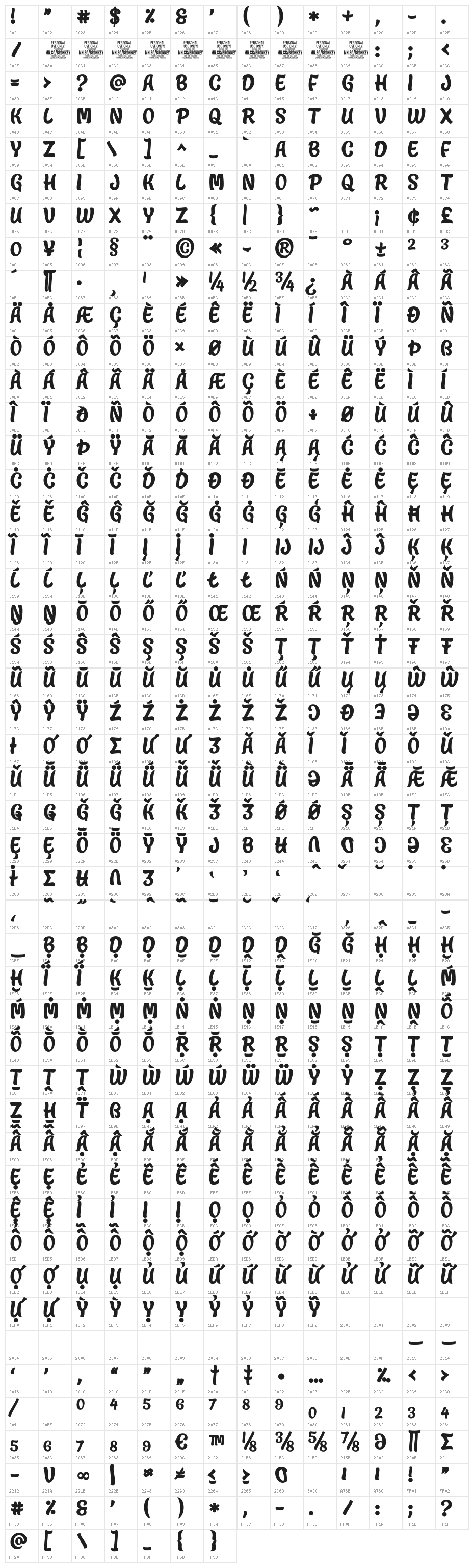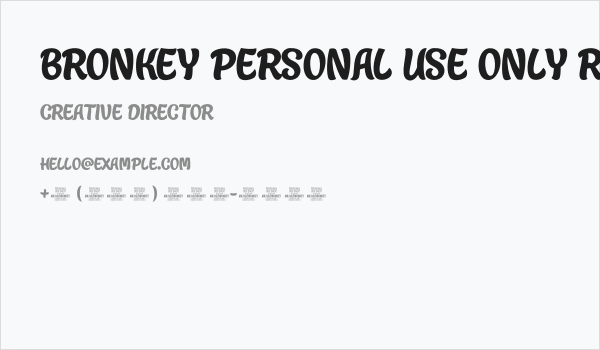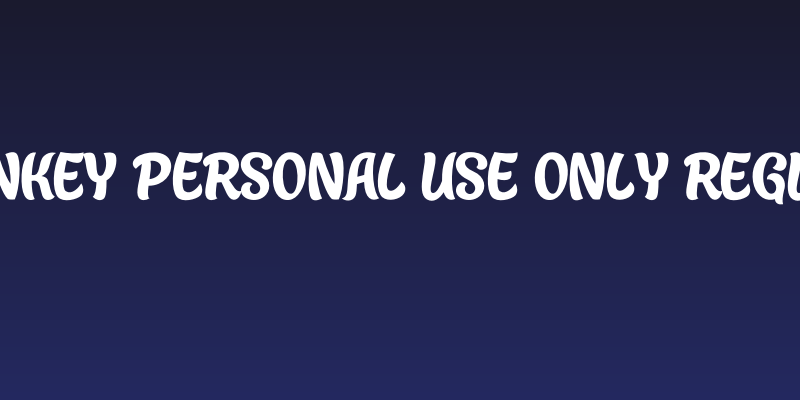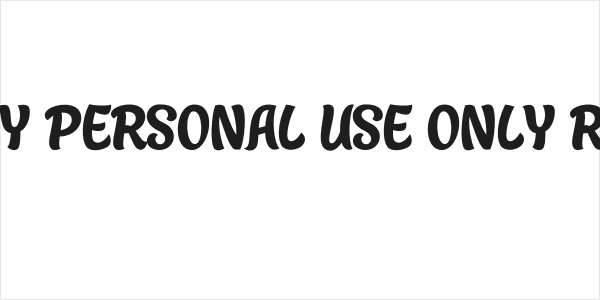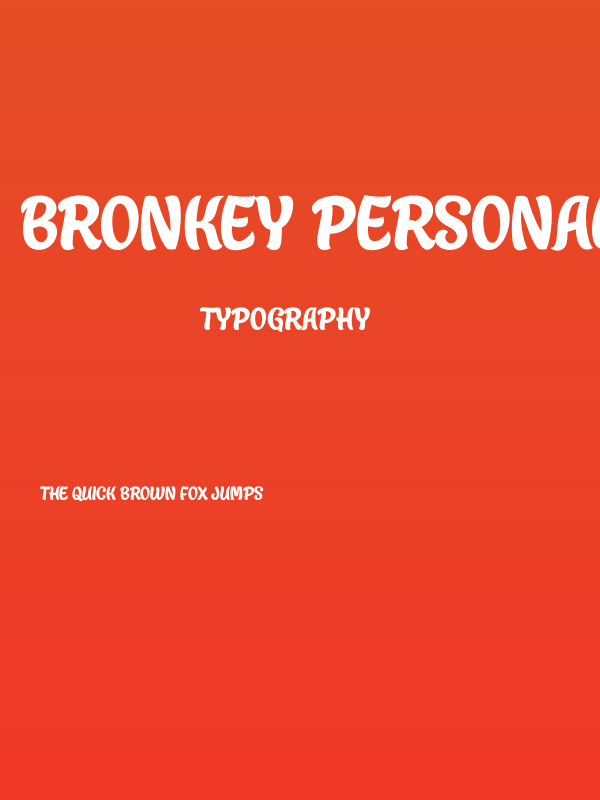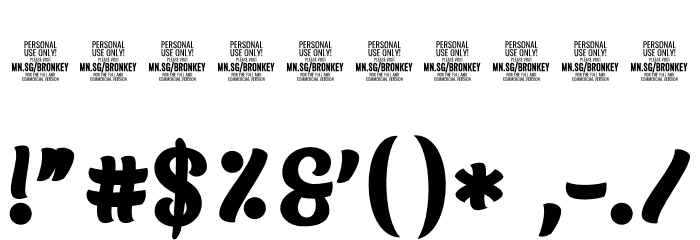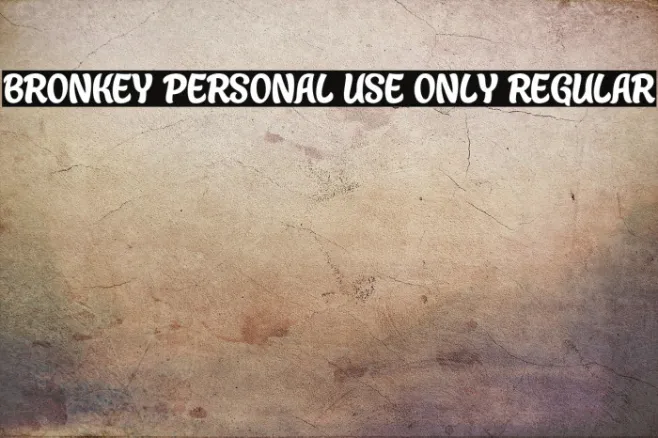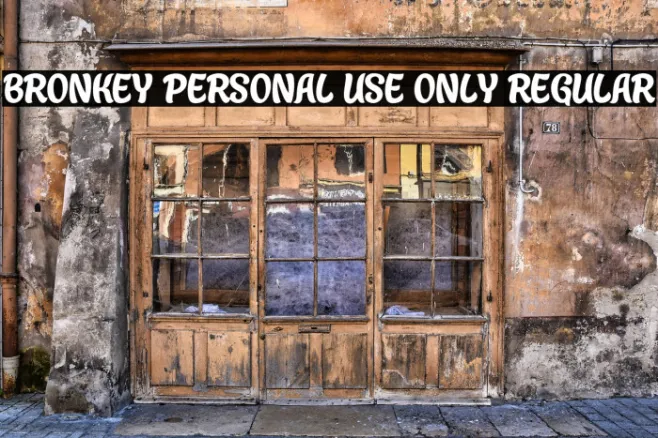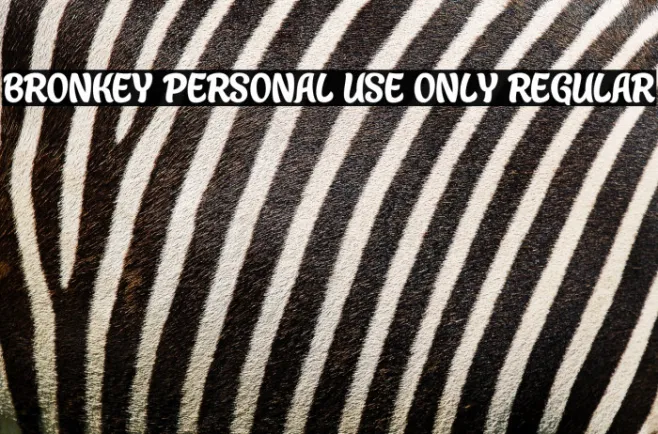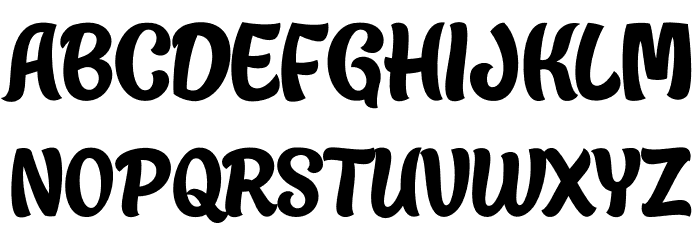
Bronkey PERSONAL USE ONLY Regular Font
Bronkey PERSONAL USE ONLY Regular Description
This font features bold, rounded characters with a playful and dynamic style. The letters have a consistent thickness, giving them a solid and robust appearance. The curves are smooth and flowing, adding a sense of movement and energy. The font maintains a uniform width across all characters, which contributes to its cohesive look. The spacing between characters is tight, enhancing the compact and impactful nature of the text. This font is well-suited for designs that require a lively and engaging aesthetic, making it ideal for attention-grabbing headlines or creative branding projects.
| Overall Style | Playful |
| Proposed Projects | Ideal for headlines, branding, posters, and playful design projects. |